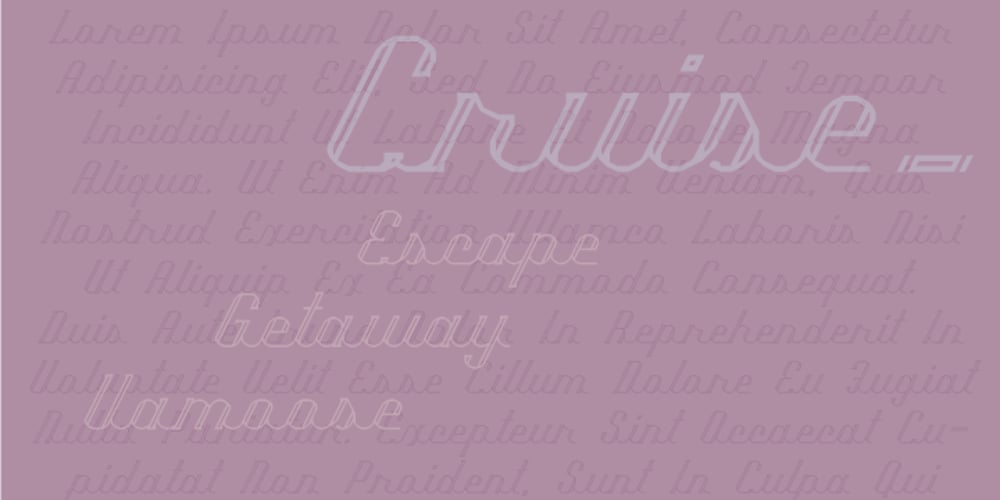
Cruise Font Family was designed by Wilson Thomas and published by Funk King. Cruise contains 1 styles and family package options. Cruise is an elegant inline modular script font.